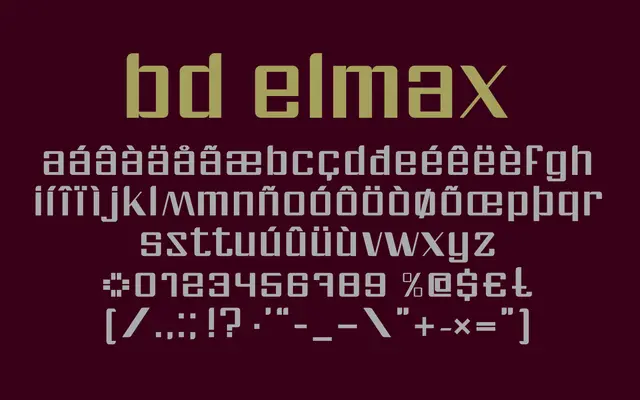
BD ElMax
Type Different · Caspar Herselman · 2003
A single-weight display typeface drawn from the Maxell audio cassette tape logotype, designed by BD intern Caspar Herselman in 2003.
Originally created in 2003 by Type Different intern Caspar Herselman, BD ElMax lifts its letterforms directly from the Maxell cassette tape brand identity. It exists as a single Regular weight covering Western European Latin, with modest extended language support added in 2023. Best suited to retro-themed design work, packaging and editorial contexts where a mid-century analogue aesthetic is intended.
A single-weight display typeface derived from the Maxell audio cassette tape logotype, placing it firmly in the retro display category with a strong industrial and brand-revival character.